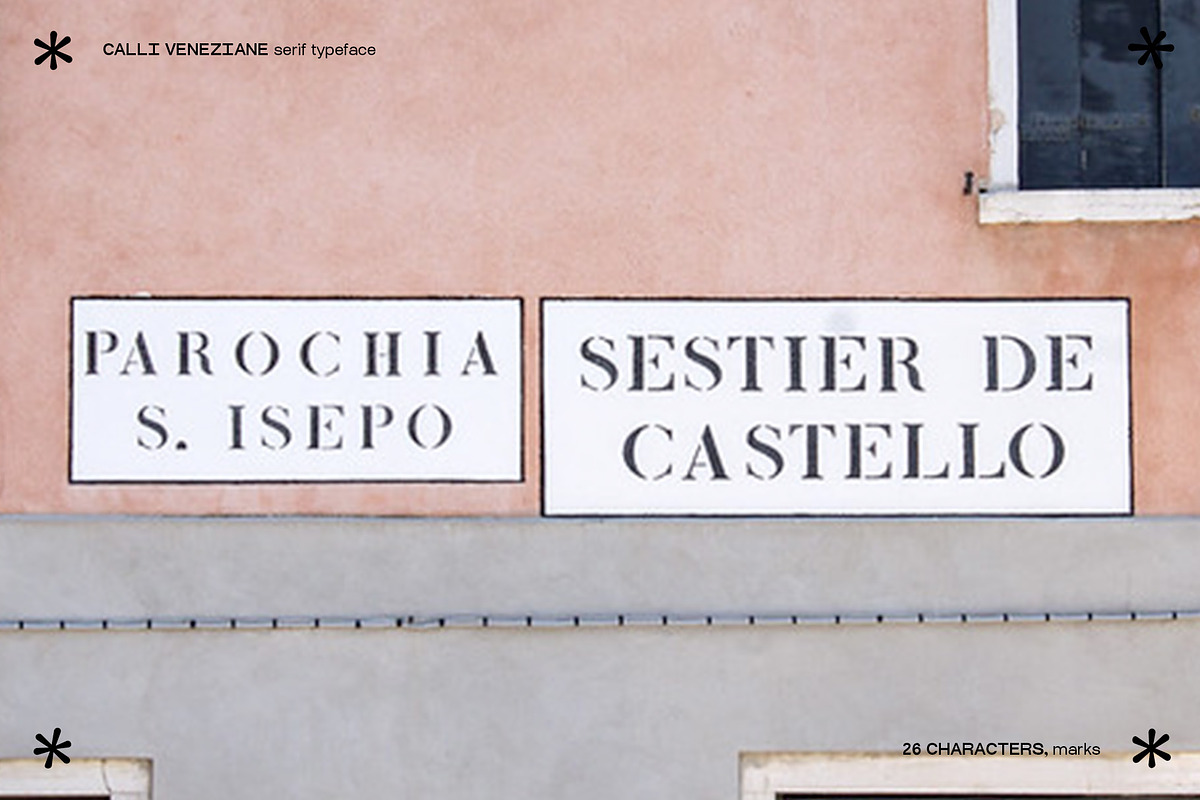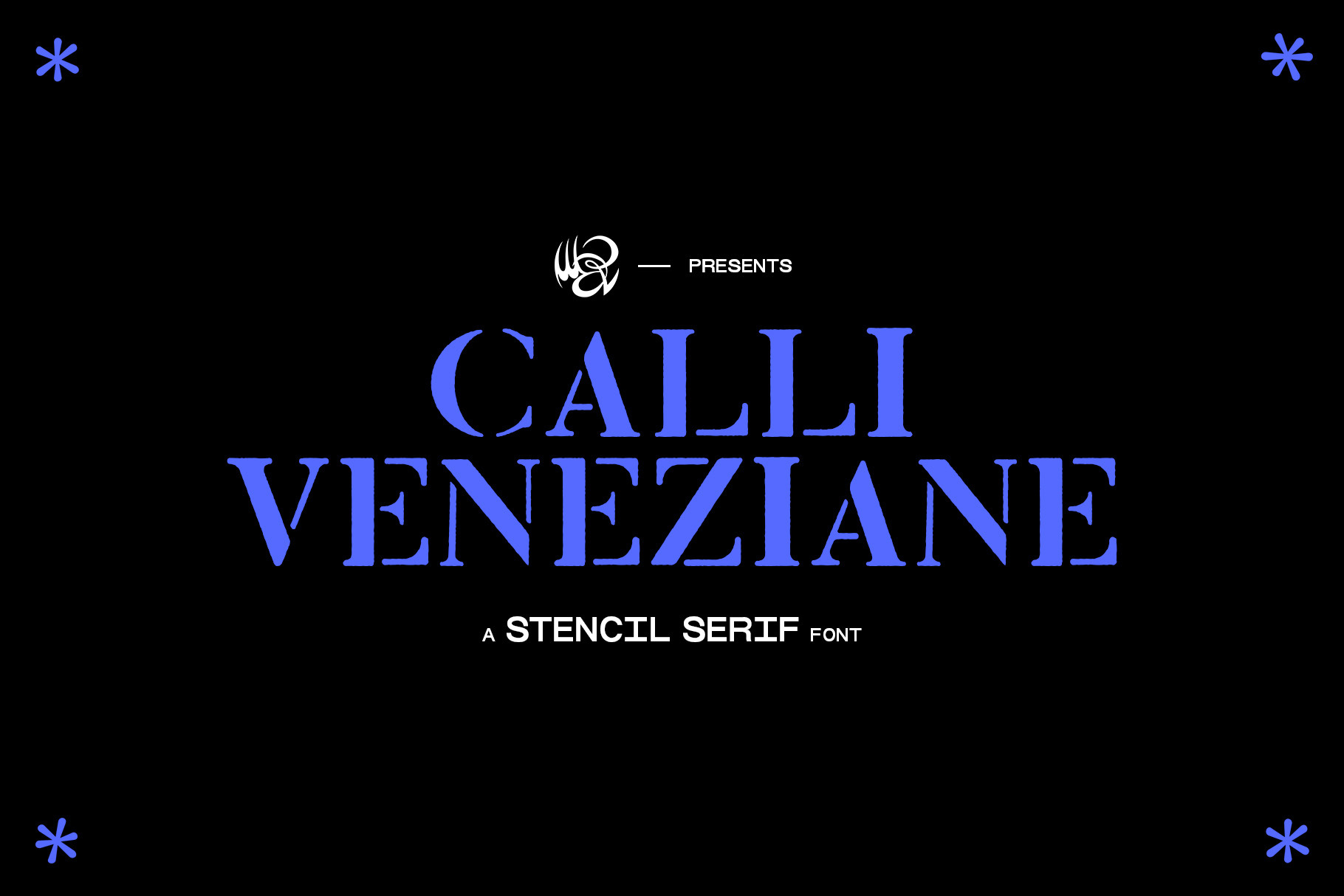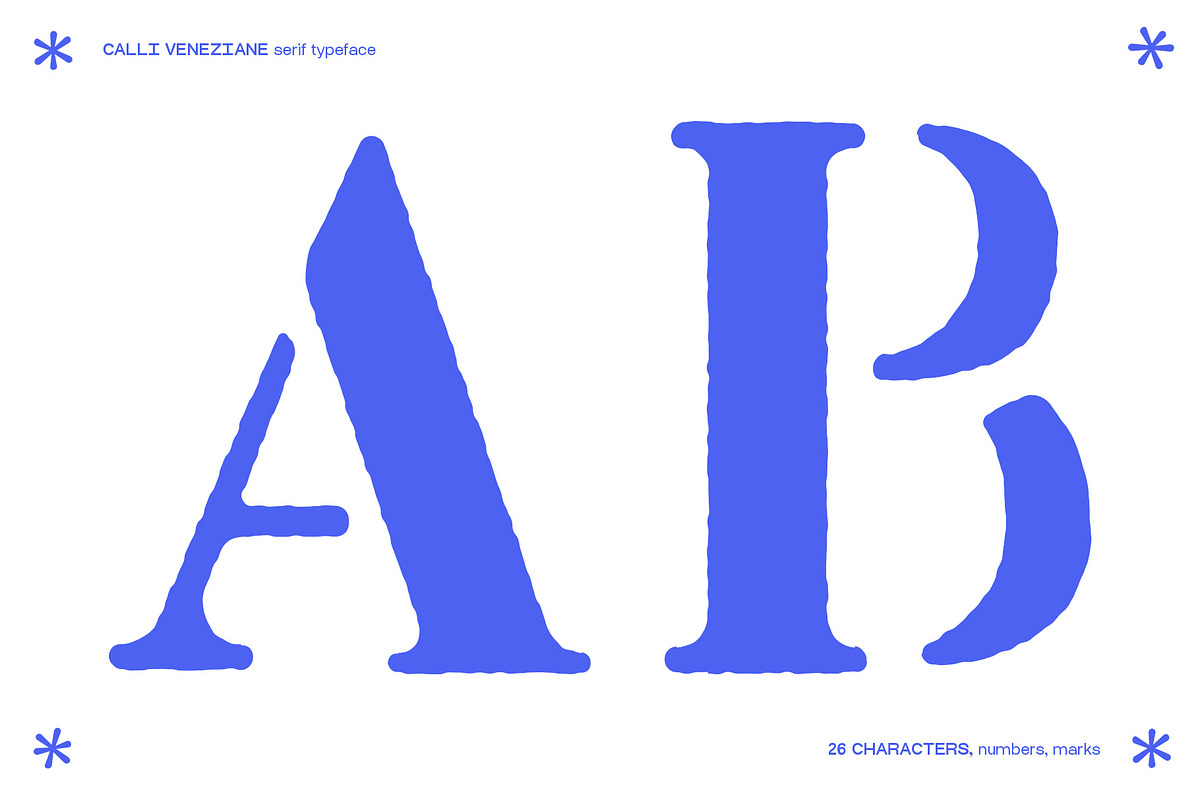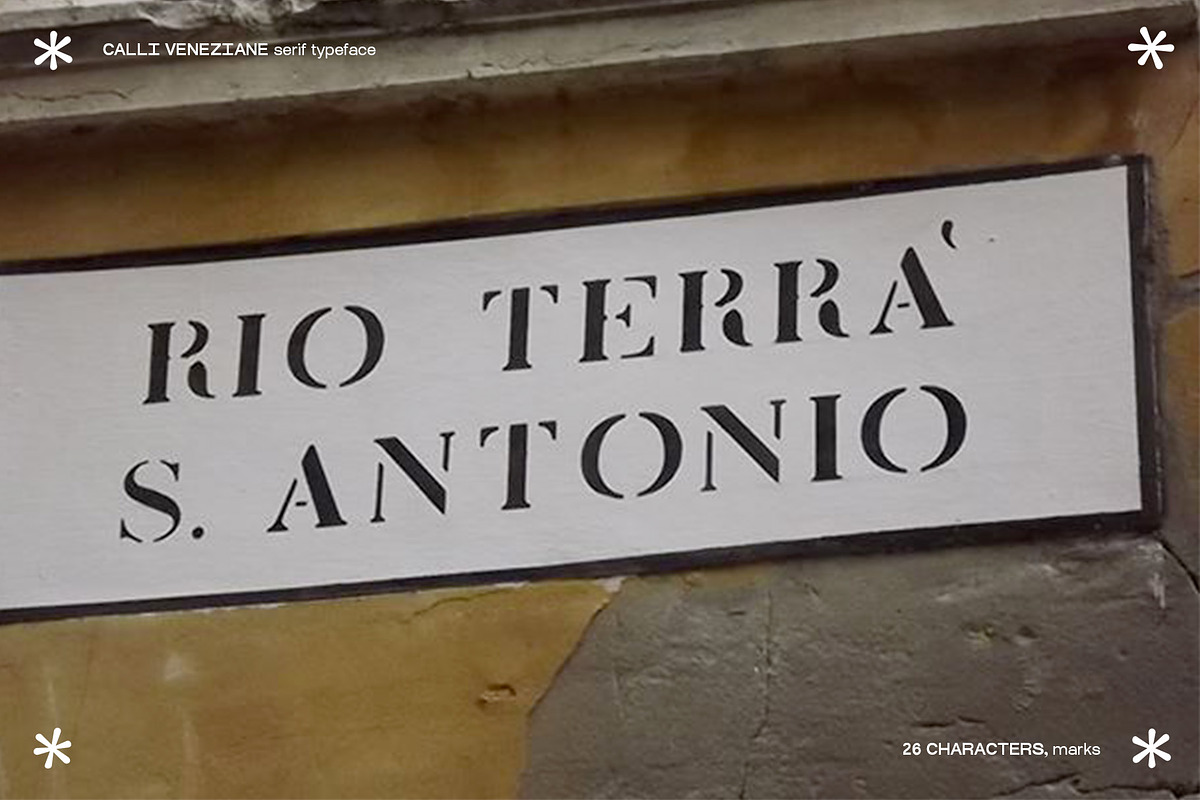
CALLI VENEZIANE Serif Font
Calli Veneziane is a font that i created for myself, as a venetian. I couldn't find the perfect font that resembled the original types on Venice's streets. There is a roughness, some spacing imperfections because those were written hundreds hears ago, and the time and the aging part of it is what fascinates me. I tried to replicate that as close as possible. The font also is stencil form. The font has all the letters and punctual marks but no numbers